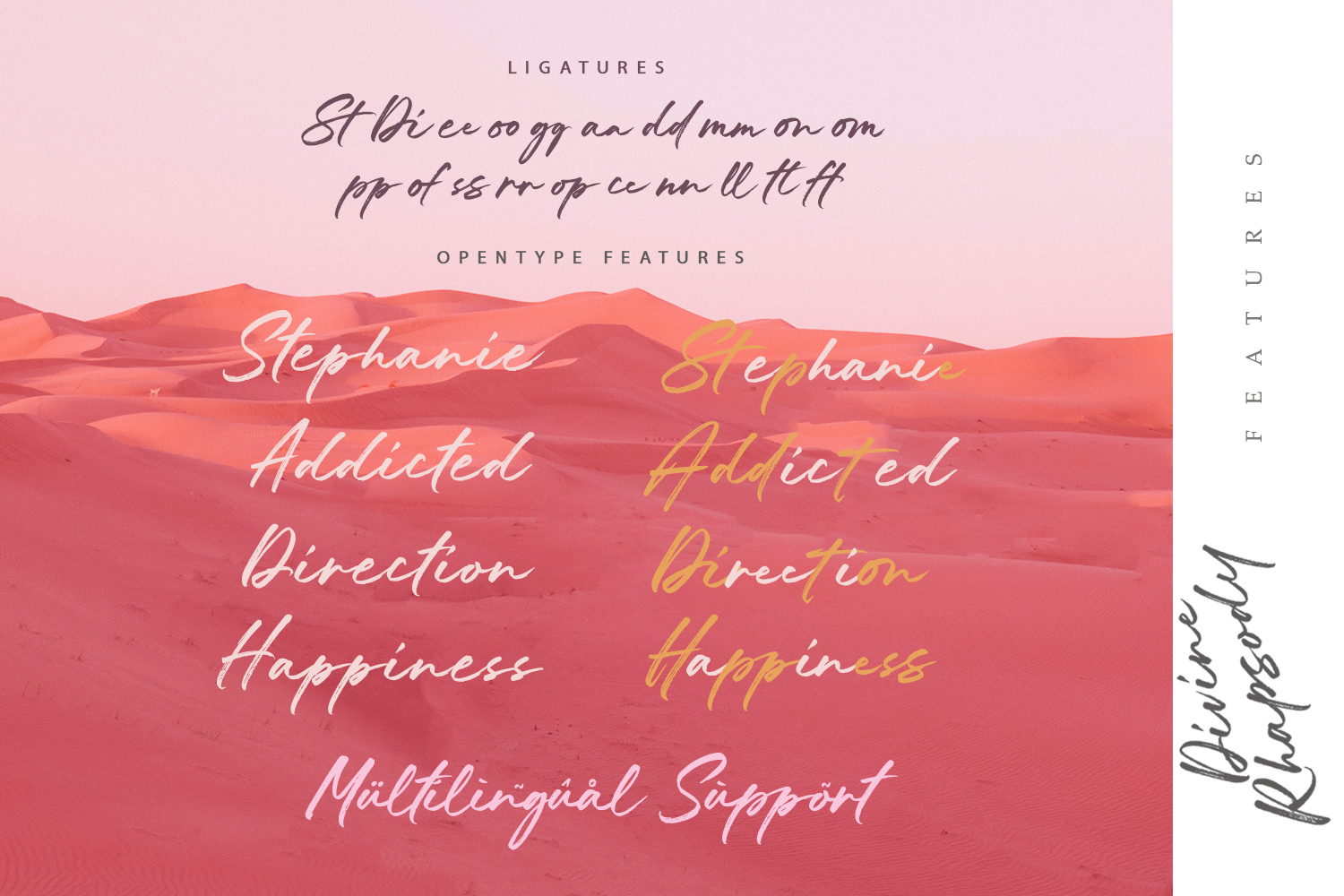
Divine Rhapsody Free Font
Divine Rhapsody Free Font is an interesting elegant handwritten typeface that mimics the writing of a brush and sets itself apart from other fonts in a modern style. This font is very well suited for various projects that require a scripted modern curly handwritten font. Use this font to create memorable branding projects, logos, wedding designs, social media posts, advertisements, product packaging, product designs, label, photography, watermark, invitation, stationery, and more. Improve your professional level using this font. If you like it don’t forget to check out the full version.